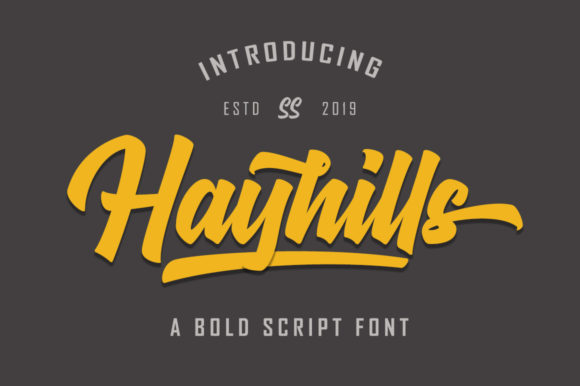
Unleash the Timeless Elegance of Hayhills: A Script Font That Echoes the Enchantment of Bygone Eras
In the realm of typography, where letters dance and words come alive, there exists a font that captures the essence of vintage charm and timeless sophistication. Allow us to introduce Hayhills, a script font crafted by the esteemed Suby Studio, that will transport your designs to an era of grace and elegance.
Hayhills is not merely a font; it's an artistic journey that invites you to explore the beauty of yesteryear. Its meticulously crafted characters exude a bold and confident presence, while the delicate flourishes add a touch of whimsy and romance. Whether you're creating wedding invitations, vintage-inspired posters, or heartfelt love letters, Hayhills will infuse your designs with a sense of nostalgia and enduring charm.
Immerse yourself in the captivating world of Hayhills and discover endless creative possibilities. Its versatility knows no bounds, making it the perfect choice for a myriad of design projects. From elegant logos that evoke a sense of heritage to enchanting branding materials that exude a touch of vintage flair, Hayhills seamlessly adapts to your vision, adding a timeless touch to every creation.
But Hayhills is more than just a visually stunning font; it's an emotional conduit that speaks to the heart. Its graceful curves and sweeping strokes evoke a sense of longing and nostalgia, transporting you to a place where time stands still and beauty reigns supreme. Whether you're crafting heartfelt invitations for a special occasion or creating marketing materials that capture attention, Hayhills has the power to stir emotions and leave a lasting impression.
In a world saturated with digital noise, Hayhills offers a refreshing respite, a sanctuary where authenticity and artistry prevail. Its timeless appeal transcends trends, ensuring that your designs will remain captivating and relevant for years to come. Embrace the allure of Hayhills and step into a realm where creativity and nostalgia intertwine, creating designs that resonate with the soul.